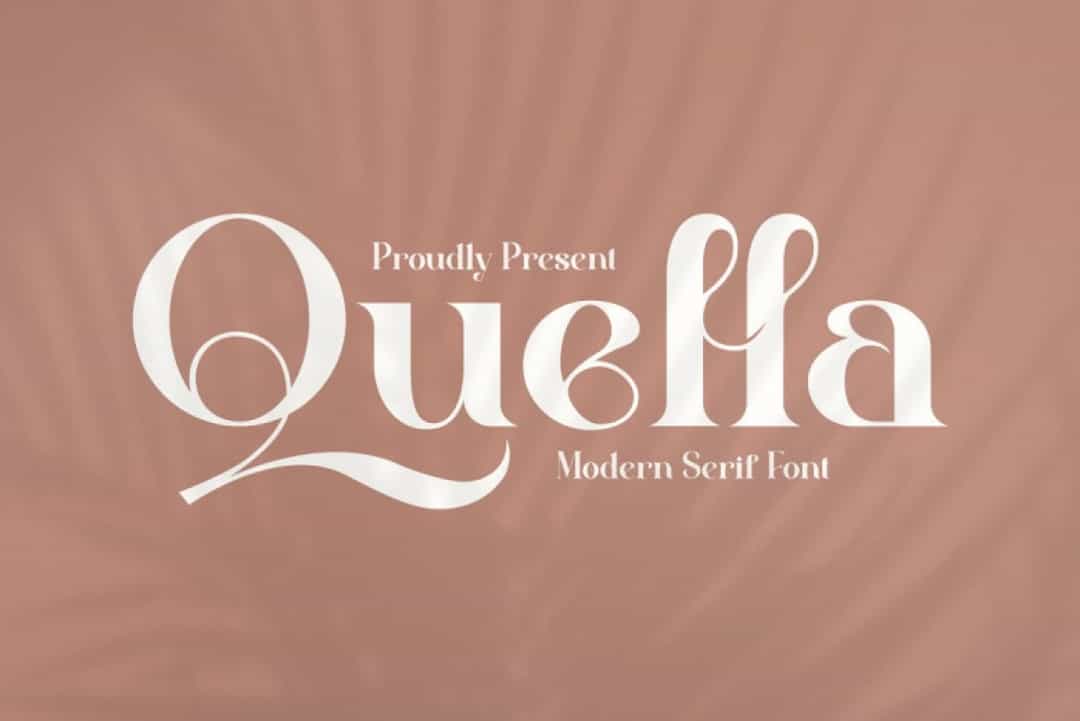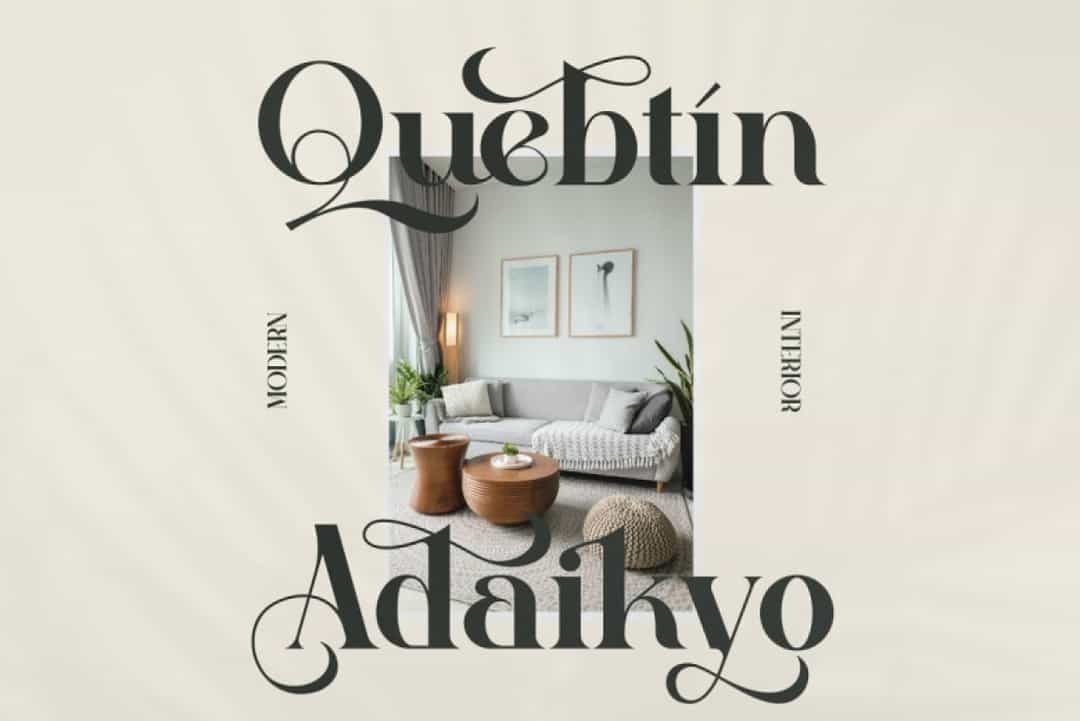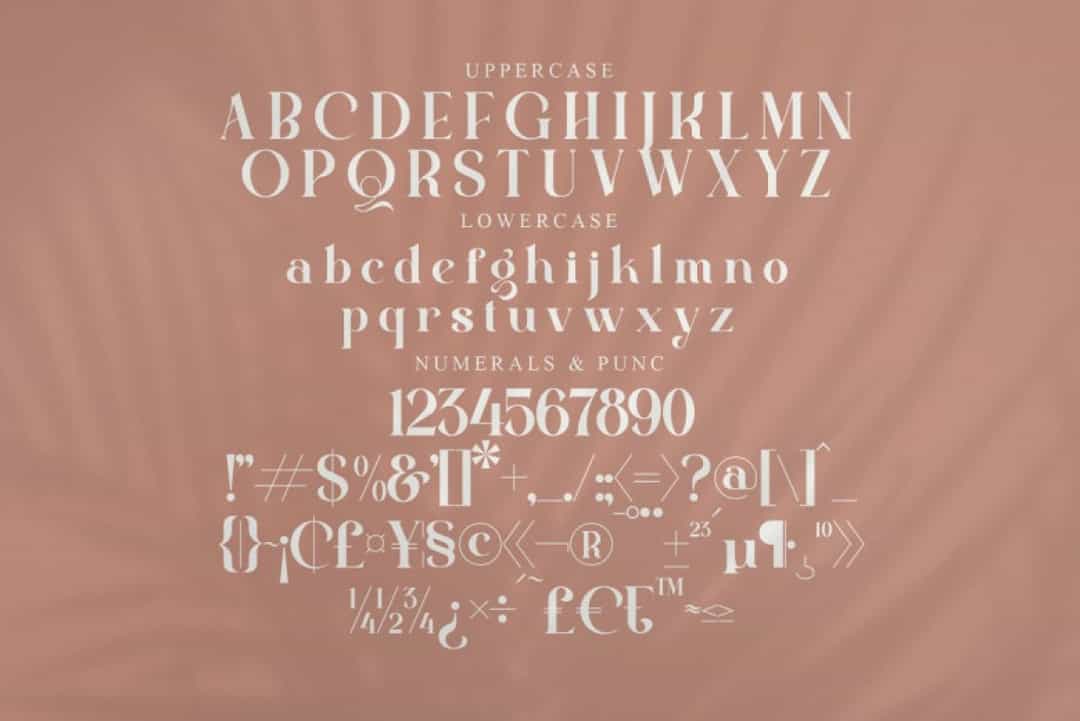
Storytype’s Quella Serif font is an exquisite modern serif and classic typeface. Known for its distinct style and contemporary vibe, it makes the ideal font choice for sophisticated logos, book/film style titles, fashion label magazines, clothing items such as lettering or quotes. We are excited to present it!